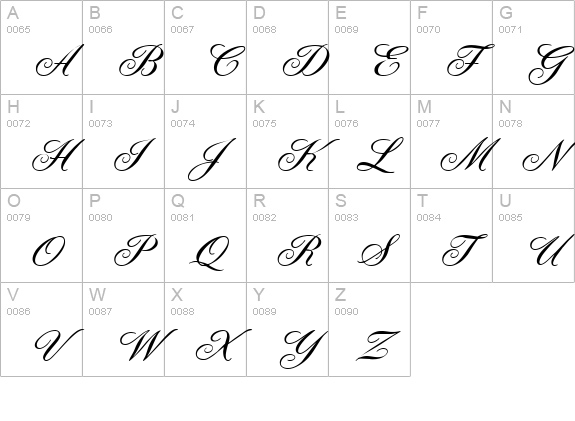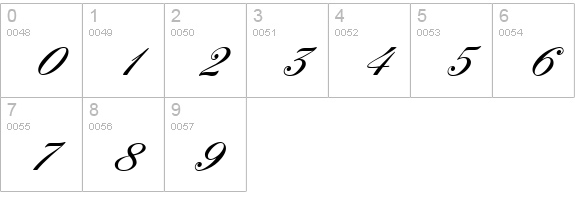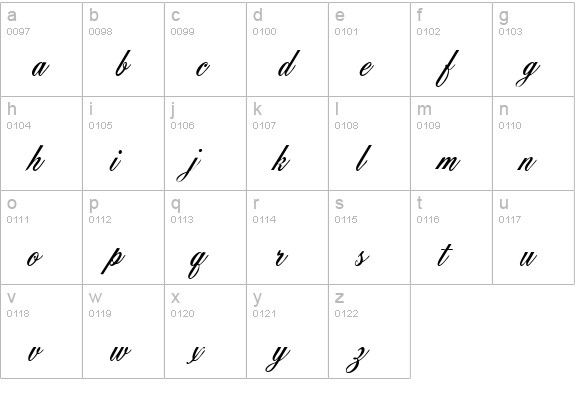
Ancestory SF Font Details
Ancestory SF is a captivating and versatile font that seamlessly blends classic elegance with a modern twist. Its sleek and sophisticated design encompasses a unique balance of sharp edges and smooth curves, making it perfect for a wide range of creative projects. With its timeless appeal and clean lines, Ancestory SF stands out as a reliable choice for both print and digital media. What sets Ancestory SF apart is not just its aesthetic appeal, but also its accessibility. This exceptional font is available for free download at FontsMarket.com, allowing designers and enthusiasts alike to effortlessly incorporate it into their work without any barriers. Whether you're looking to add a touch of sophistication to your branding, create striking headlines, or enhance your digital presence, Ancestory SF is a versatile and reliable option that won't disappoint. Embrace the elegance and modernity of Ancestory SF as you explore the endless possibilities it offers. Download this exceptional font for free today and elevate your design projects to new heights.